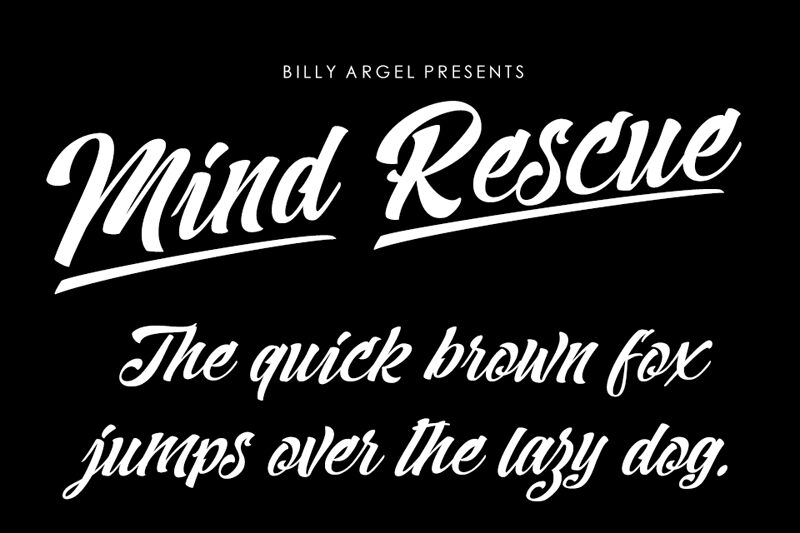
Mind Rescue is a dynamic brush font crafted by the talented designer Billy Argel. Its bold, expressive strokes and organic flow convey a sense of energetic movement and spontaneity, making it an ideal choice for a wide range of design applications. From eye-catching title treatments to dynamic branding and editorial layouts, "Mind Rescue" seamlessly bridges the gap between refined elegance and raw, artistic expression.
This font's versatility shines through in its ability to add depth and character to a diverse array of design projects, making it a valuable asset for any creative professional.